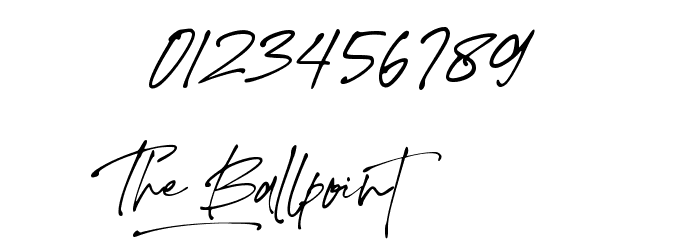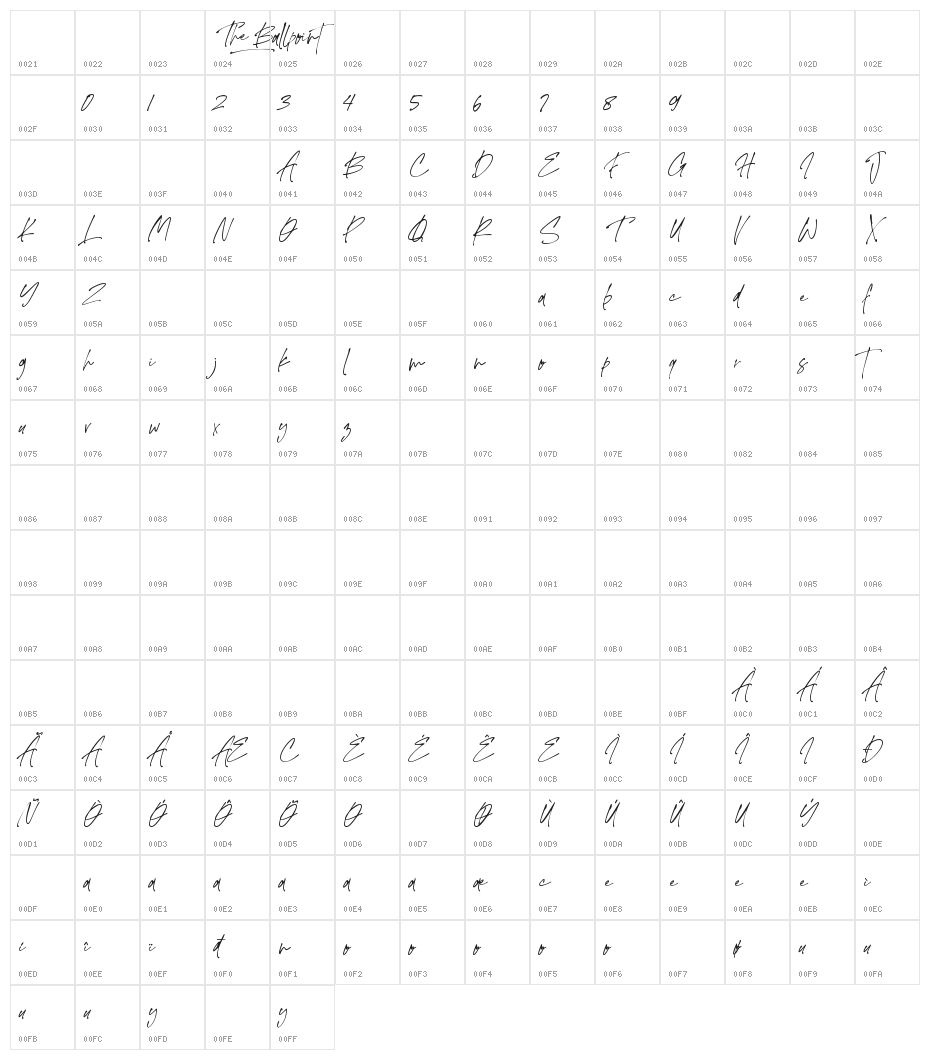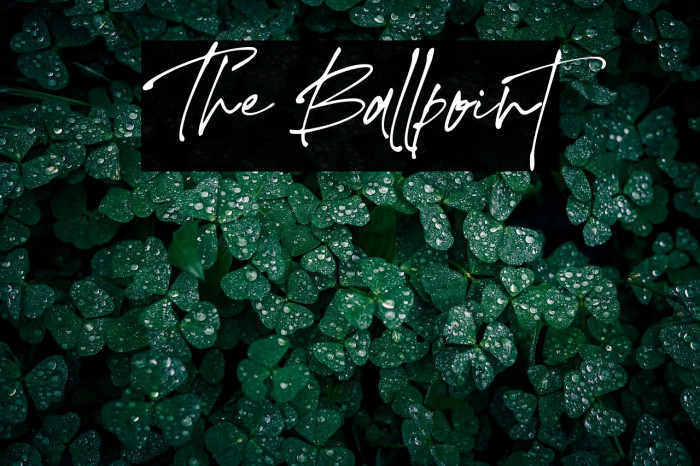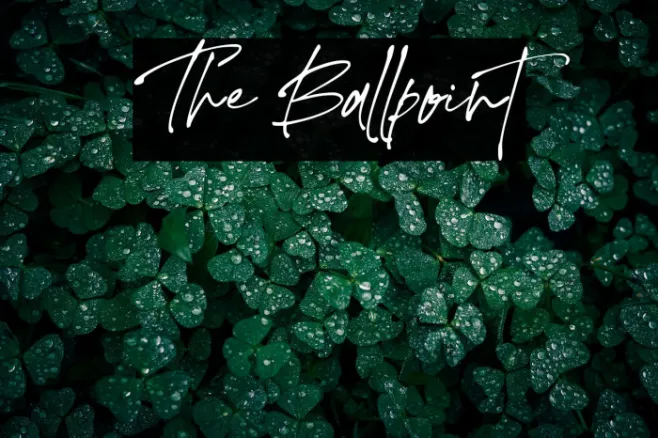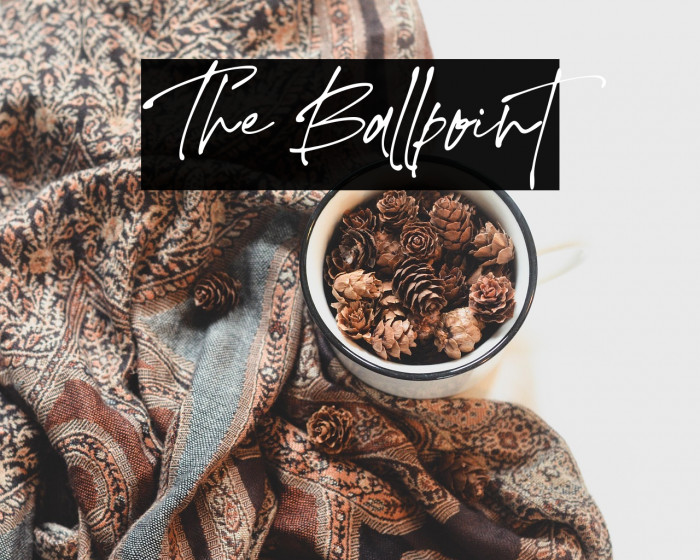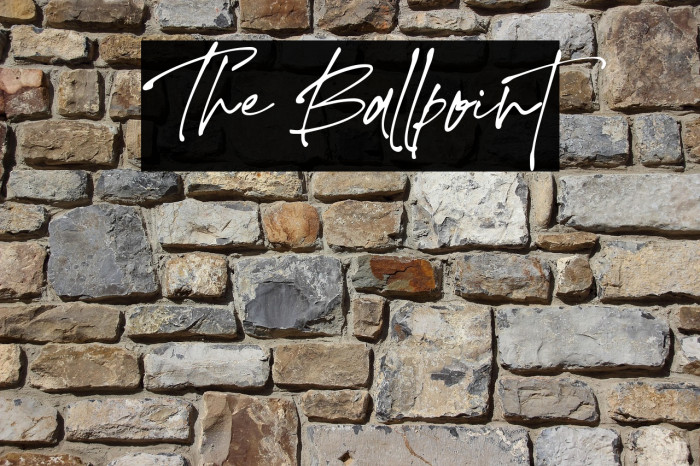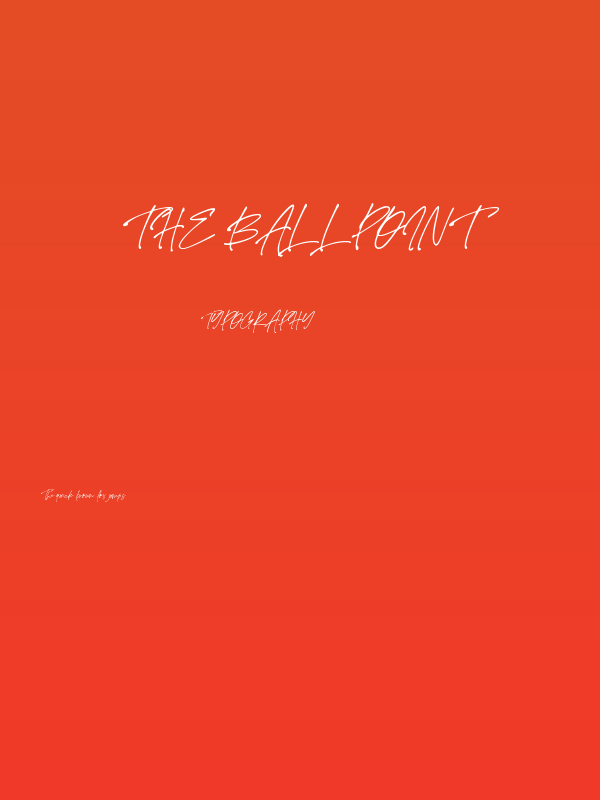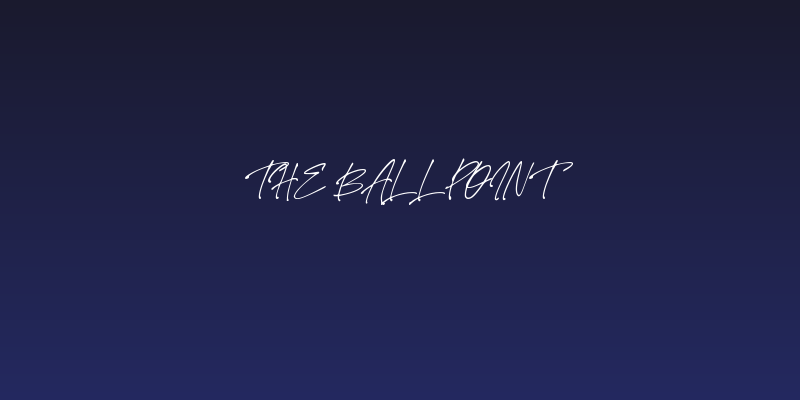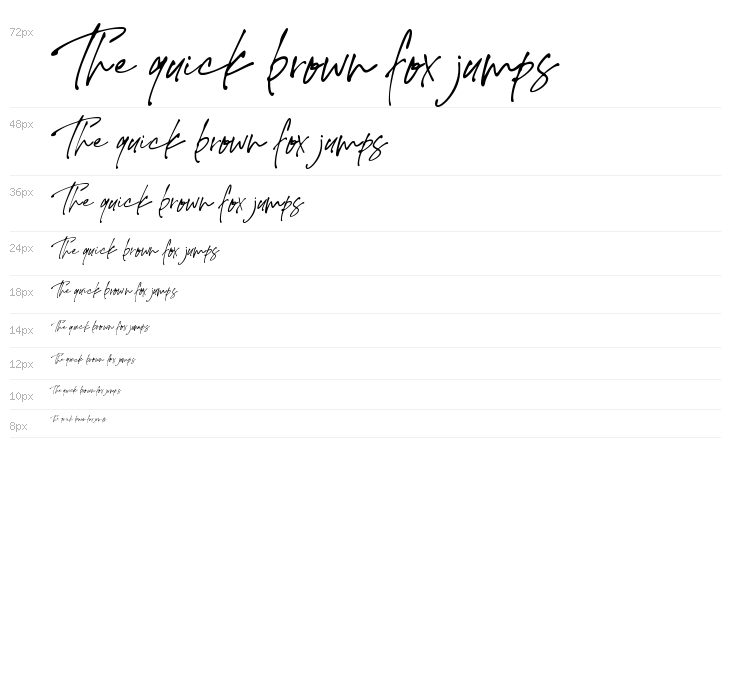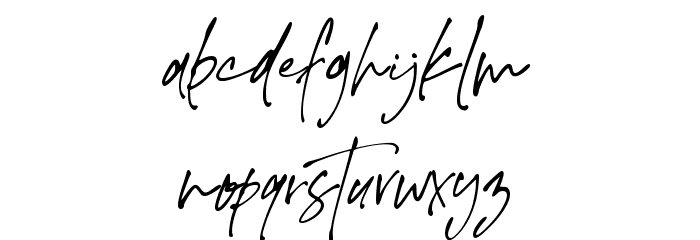
The Ballpoint Font
The Ballpoint Description
This font exudes a casual and fluid handwritten style, reminiscent of writing with a ballpoint pen. The characters are connected with smooth, flowing lines, giving it an elegant yet approachable feel. The uppercase letters are bold and dynamic, while the lowercase letters maintain a consistent rhythm and flow. Numbers and special characters are crafted to match the overall aesthetic, ensuring a cohesive look across all text. The font's organic and personal touch makes it ideal for projects that require a human element.
| Overall Style | Casual, Elegant |
| Use Case | Logos, Invitations, Social Media |
| Proposed Projects | Ideal for personal invitations, greeting cards, branding projects, and social media graphics. |